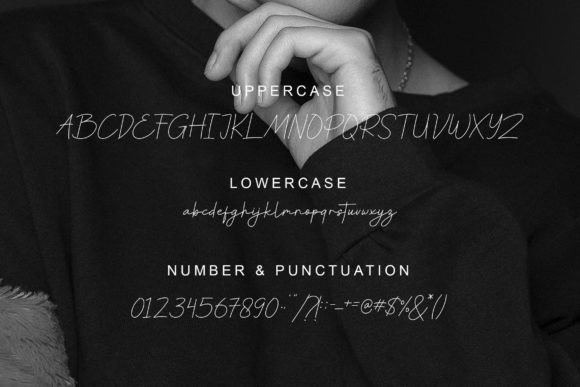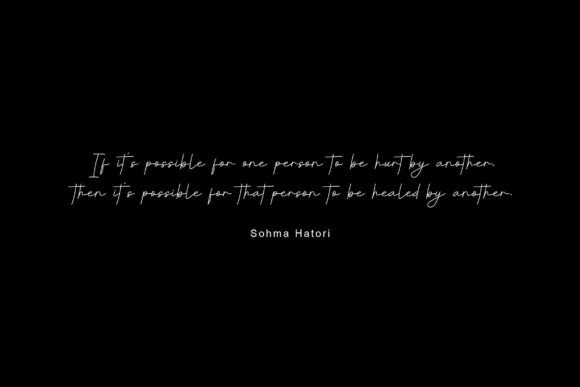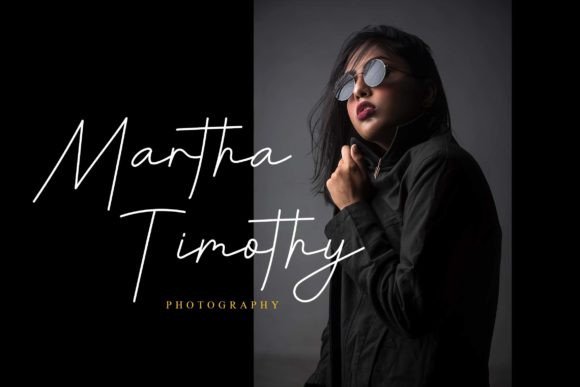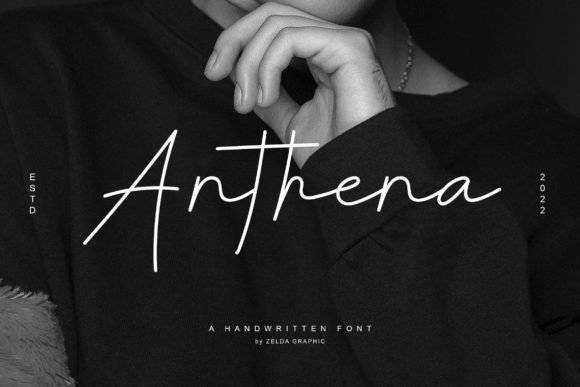
Introduction to Anthena Font
Anthena is a stylish and elegant signature script font.
Add it to your creative projects and make them outstanding .
Why Choose Anthena Font?
Anthena Font offers exceptional quality and versatility, making it a valuable addition to your design toolkit. Whether you’re creating for personal projects or commercial use, Anthena Font delivers professional results.